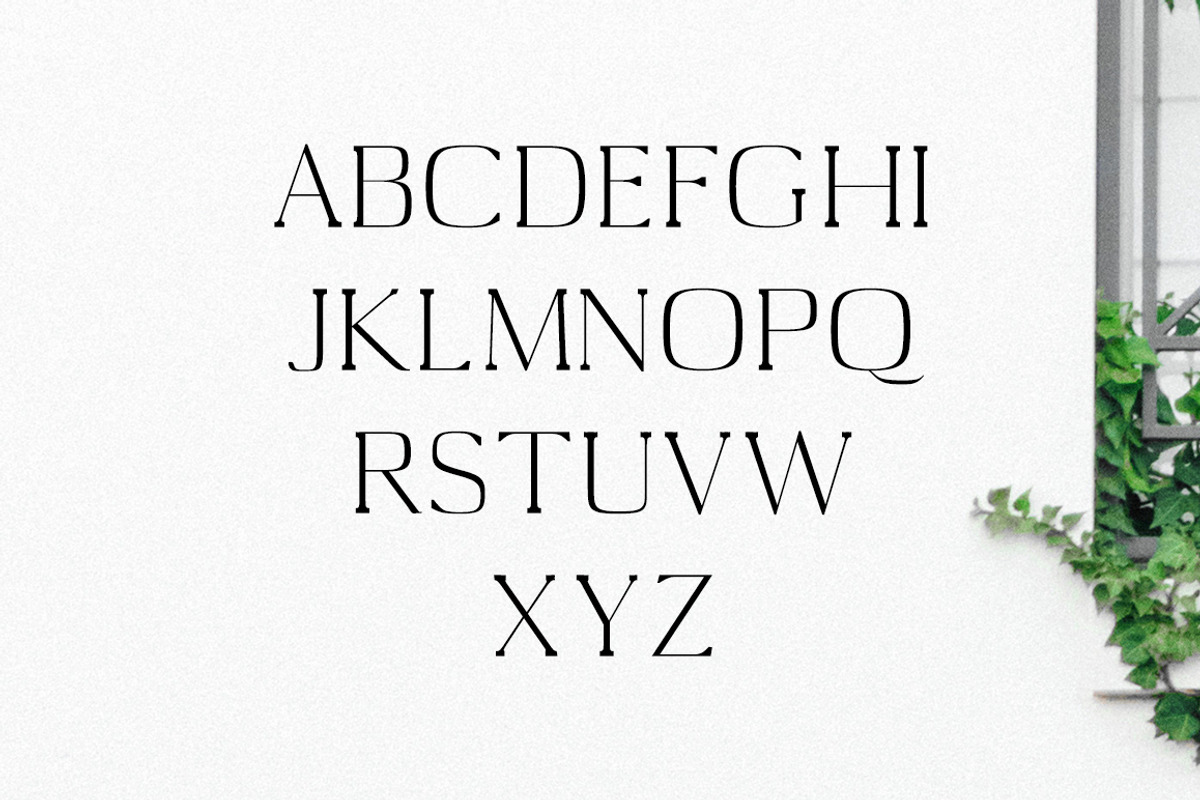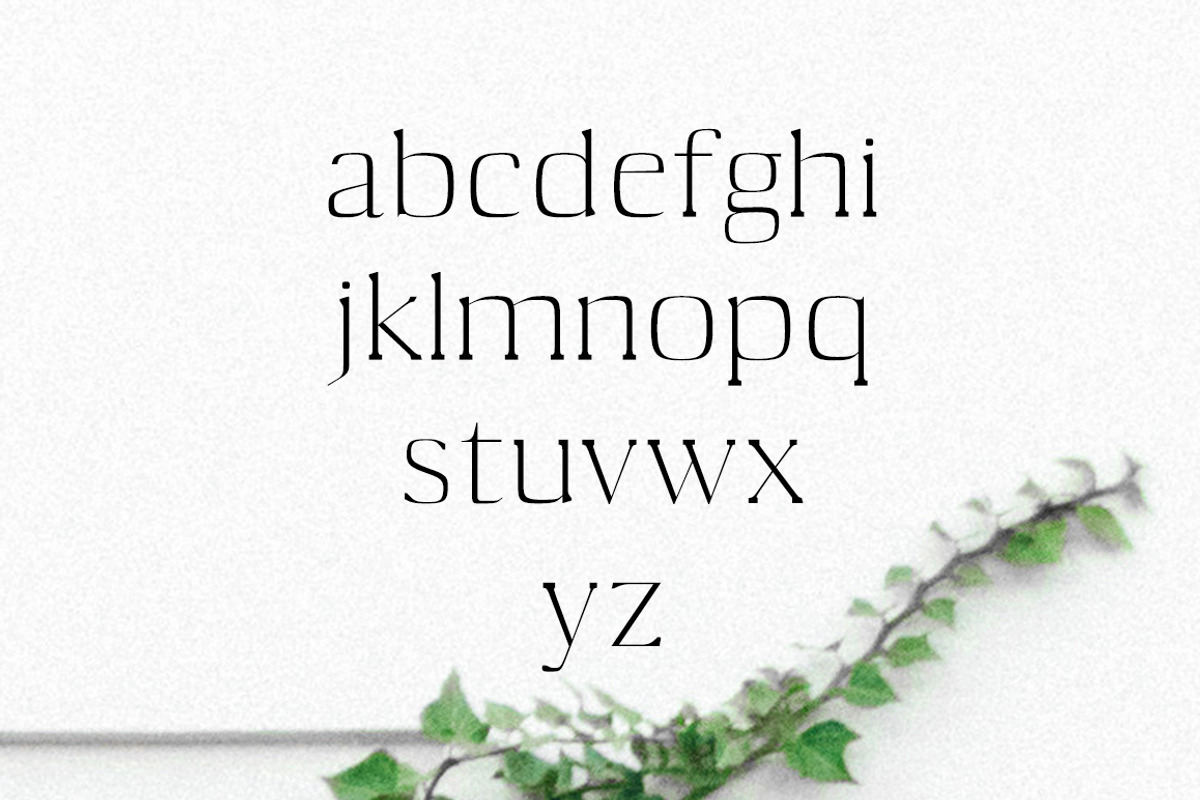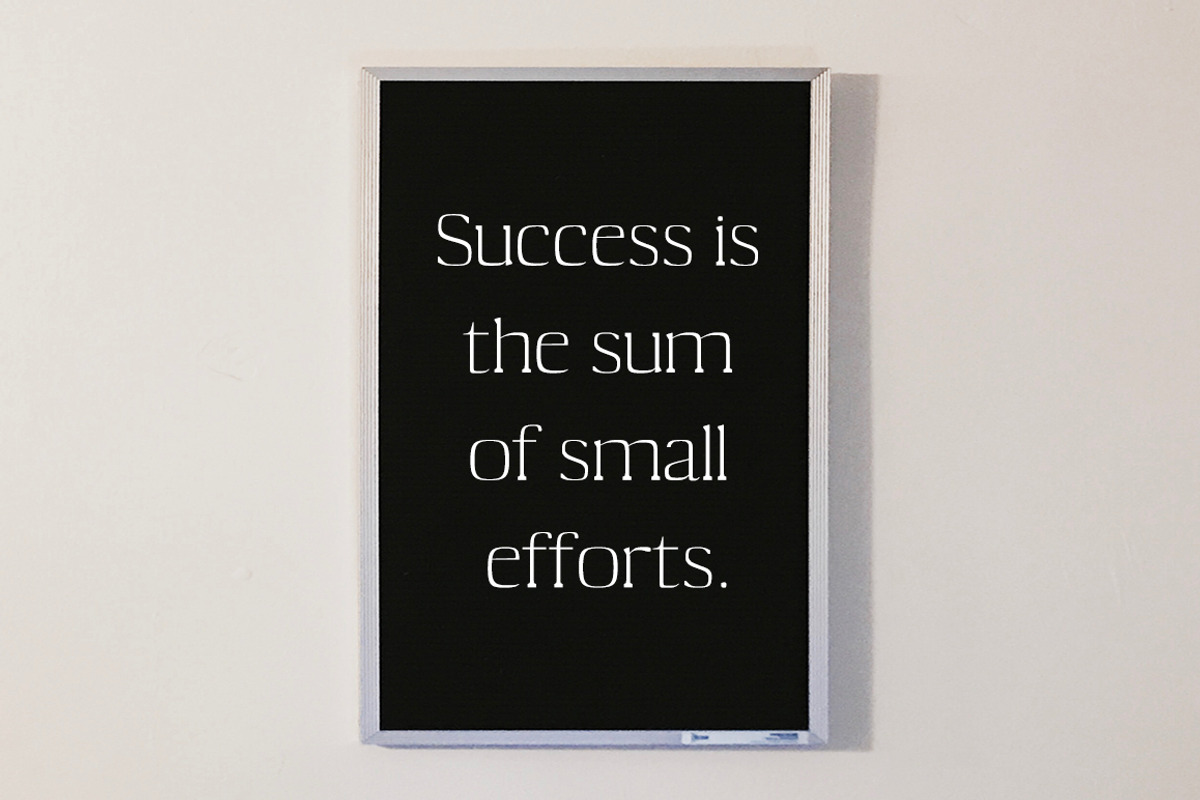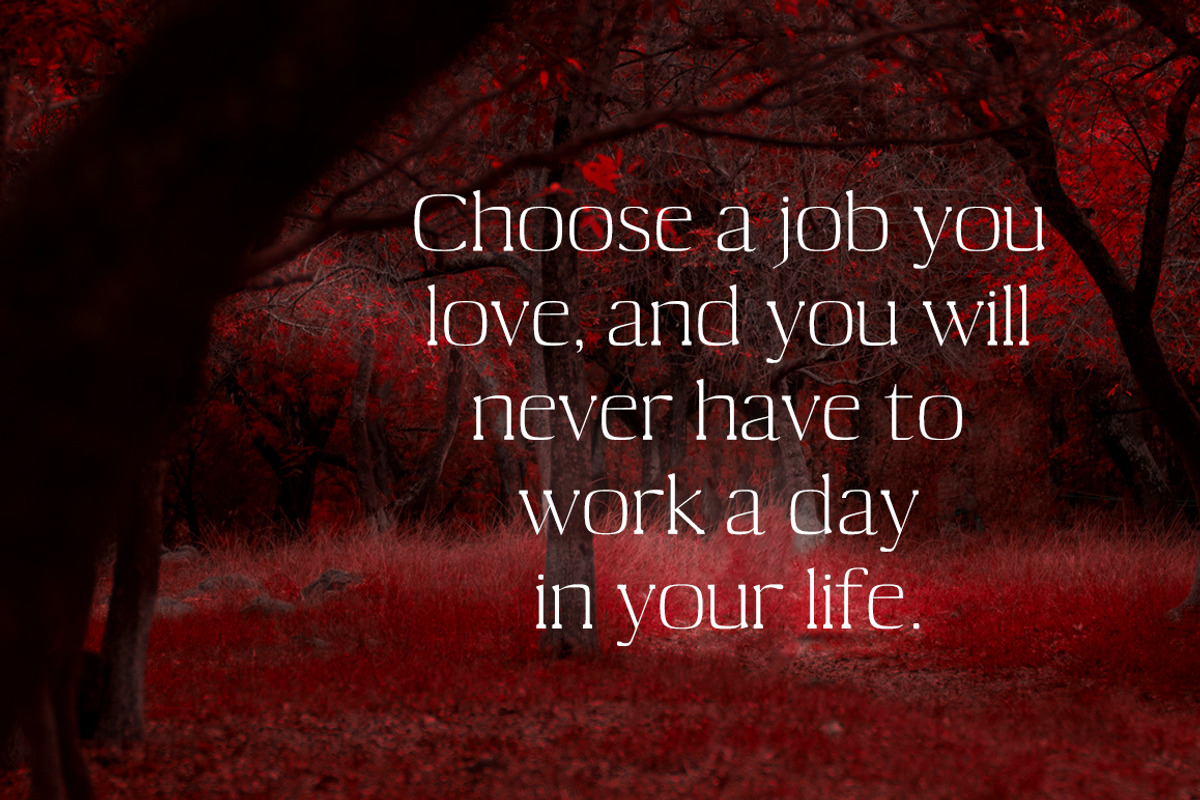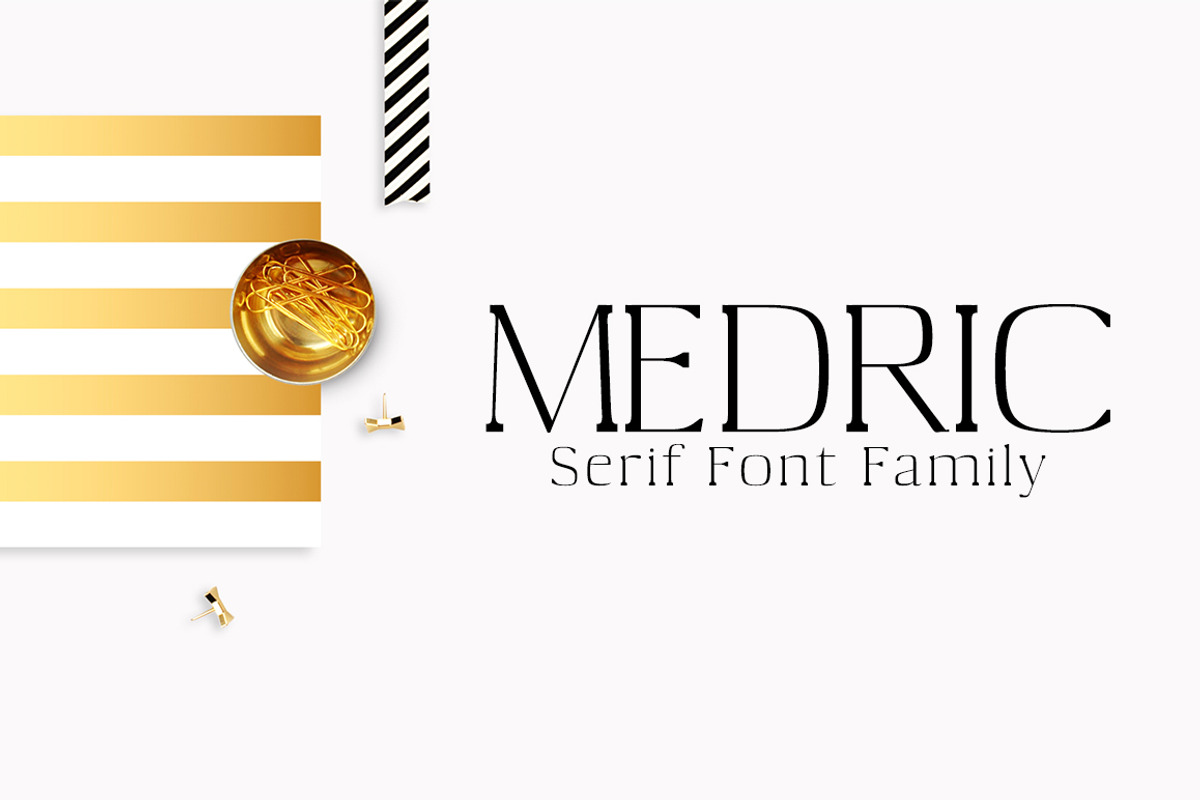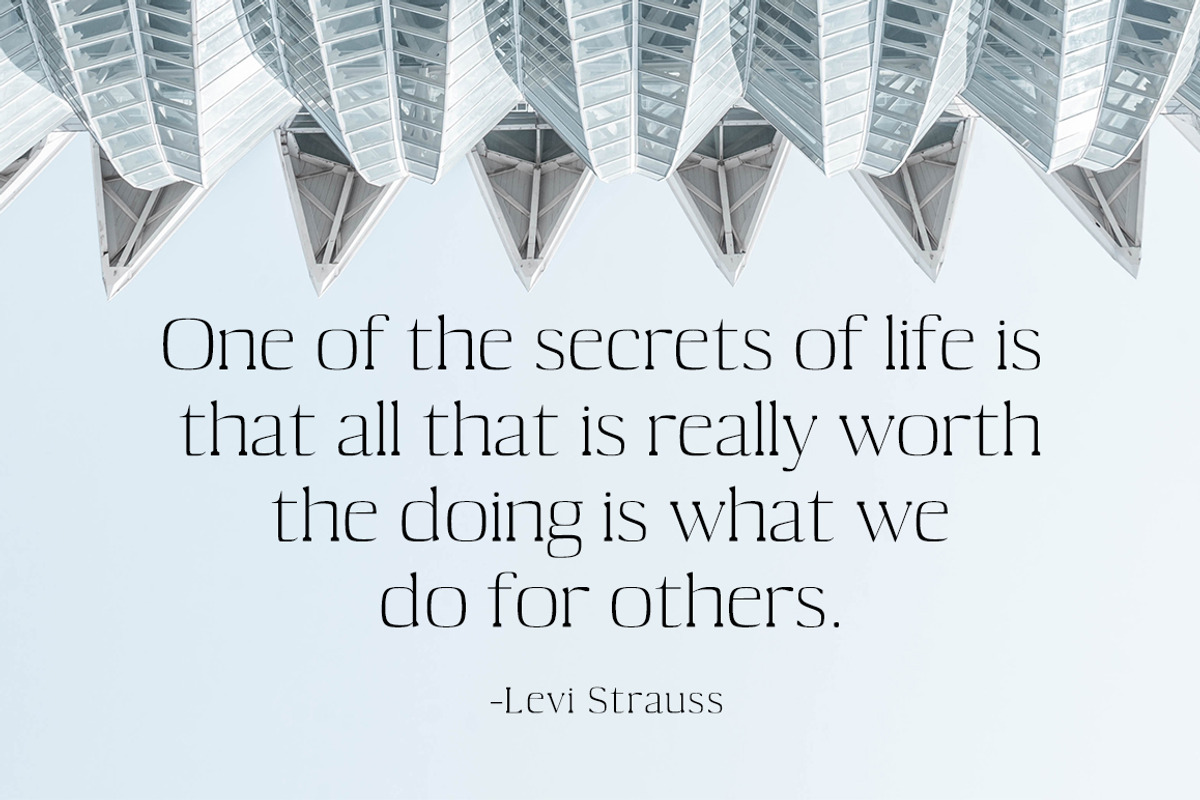
Medric Serif 4 Font Family
Medric Serif 4 Font Family by Creativetacos is a font selected for branding, posters, packaging, typography.
Why Medric Serif 4 Font Family is worth a look
Medric Serif 4 Font Family by Creativetacos fits naturally into Branding, posters, packaging, typography.